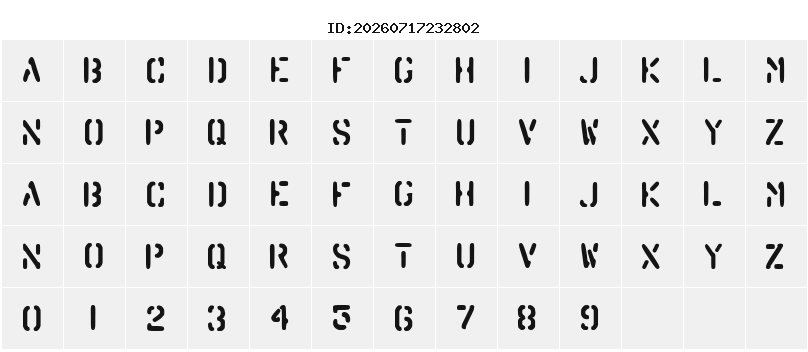
Barrel Preview
• Font Name: Barrel
• Full Font Name: Barrel
Barrel.ttf is a modern, elegant sans-serif font designed for ultimate readability and visual harmony. Perfect for branding, headlines, web design, and print materials.